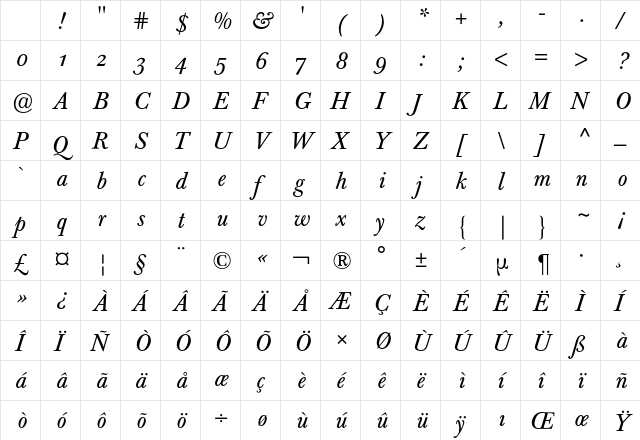
Baskerville Expert BQ Regular
Design Context for Baskerville Expert BQ
Baskerville Expert BQ is a composed and adaptable typeface that performs quietly and consistently across a wide range of design contexts.
Pro Tip: Use Baskerville Expert BQ in both headline and body roles to test its range before committing to a single application.